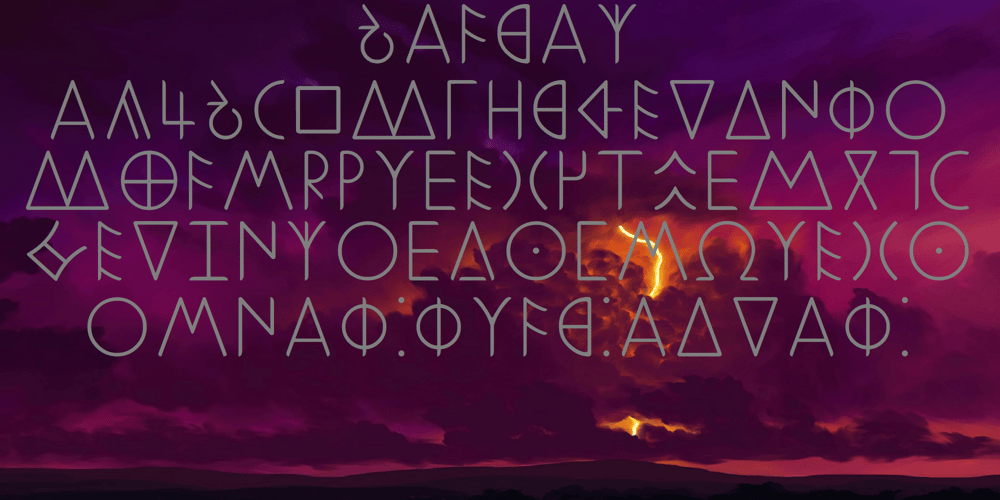
Ongunkan Carian Font Family was designed by Osman Nuri ALKAN and published by Runic World Tamgacı. Ongunkan Carian contains 1 styles and family package options. Caria (/ˈkɛəriə/; from Greek: Καρία, Karia, Turkish: Karya) was a region of western Anatolia extending along the coast from mid-Ionia (Mycale) south to Lycia and east to Phrygia. The Ionian and Dorian Greeks colonized the west of it and joined the Carian population in forming Greek-dominated states there. Carians were described by Herodotus as being of Minoan descent, while he reports that the Carians themselves maintained that they were Anatolian mainlanders intensely engaged in seafaring and were akin to the Mysians and the Lydians